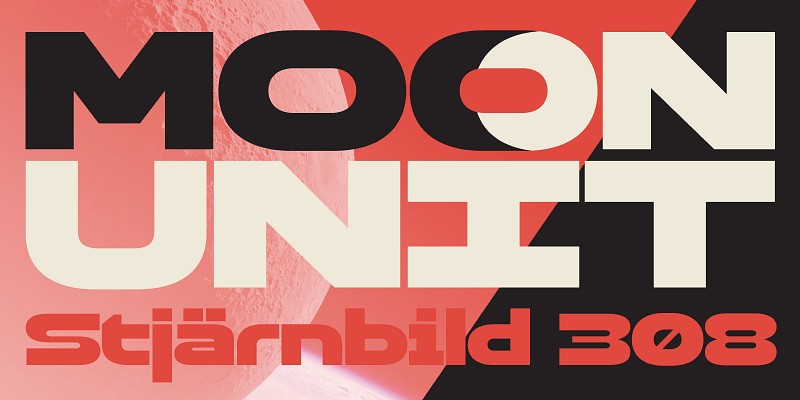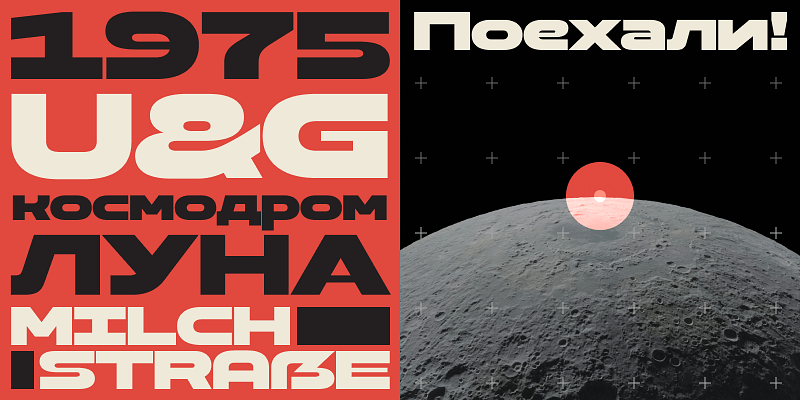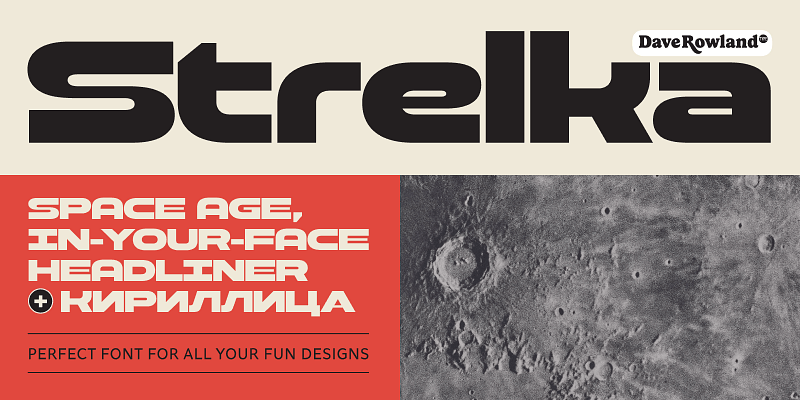
Strelka Ultra is a space-age headliner, perfect for your interplanetary tourism business, spaceport wayfinding systems, or sentient robot army’s corporate identity. For that authentic galactic look, a Cyrillic alphabet was a must. Small Caps and a handful of useful alternates are included for Latin glyphs. Lastly, automatic fractions are available for all your (g)astronomic cookbook needs.